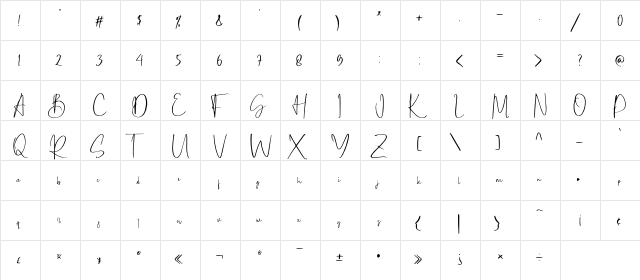
Geovanice Regular
Design Context for Geovanice Typeface
Geovanice is a composed and adaptable typeface that performs quietly and consistently across a wide range of design contexts.